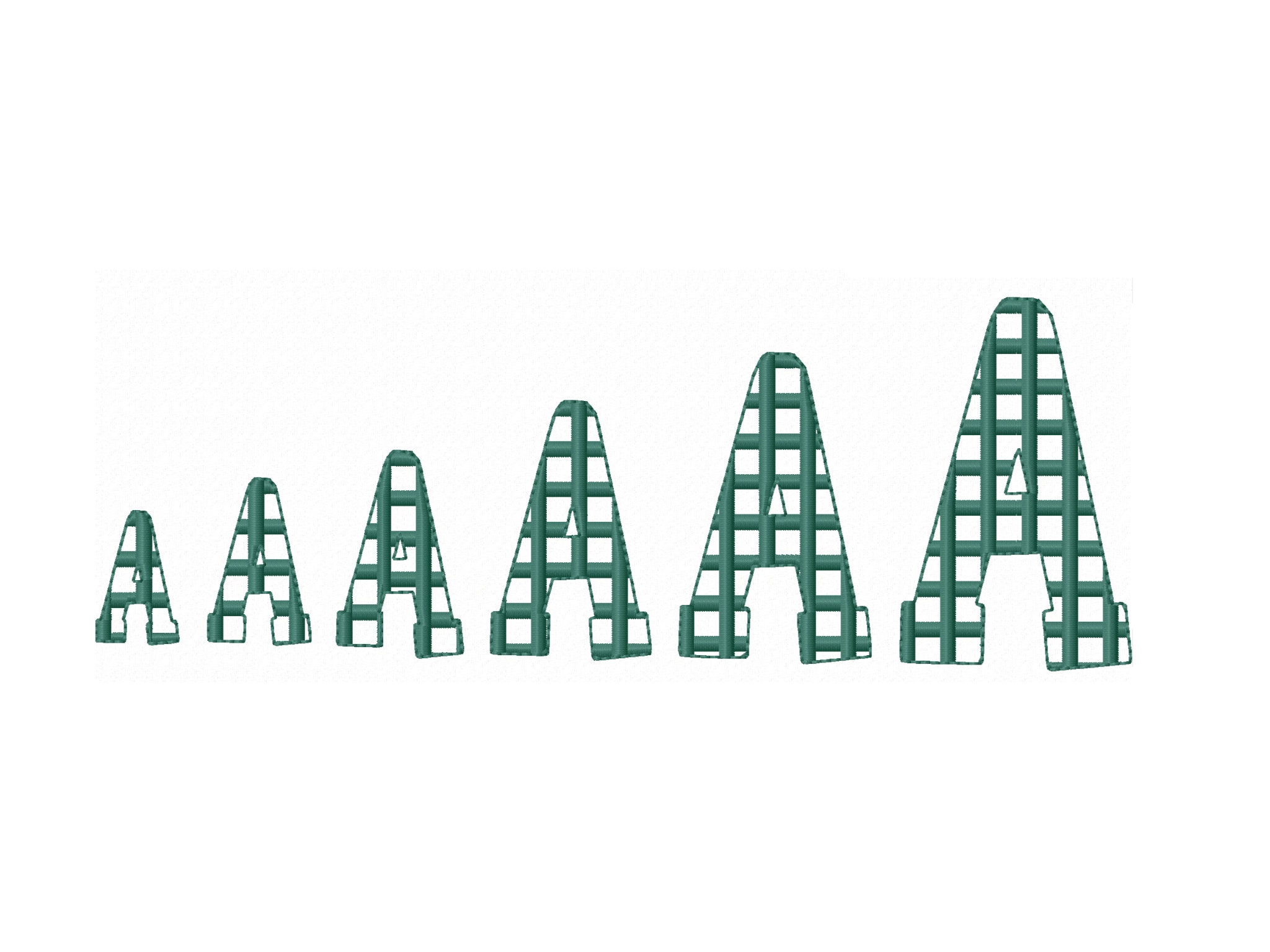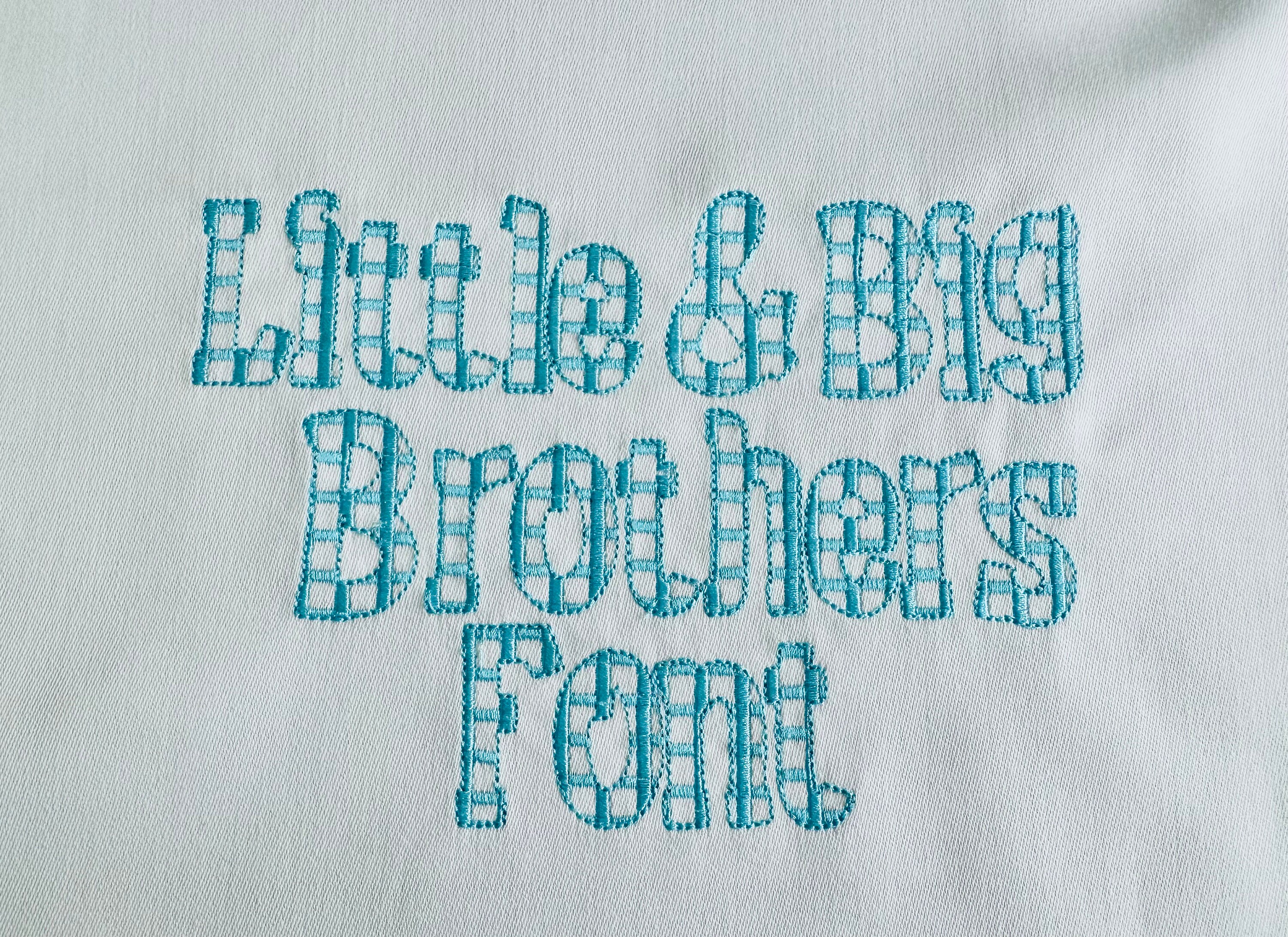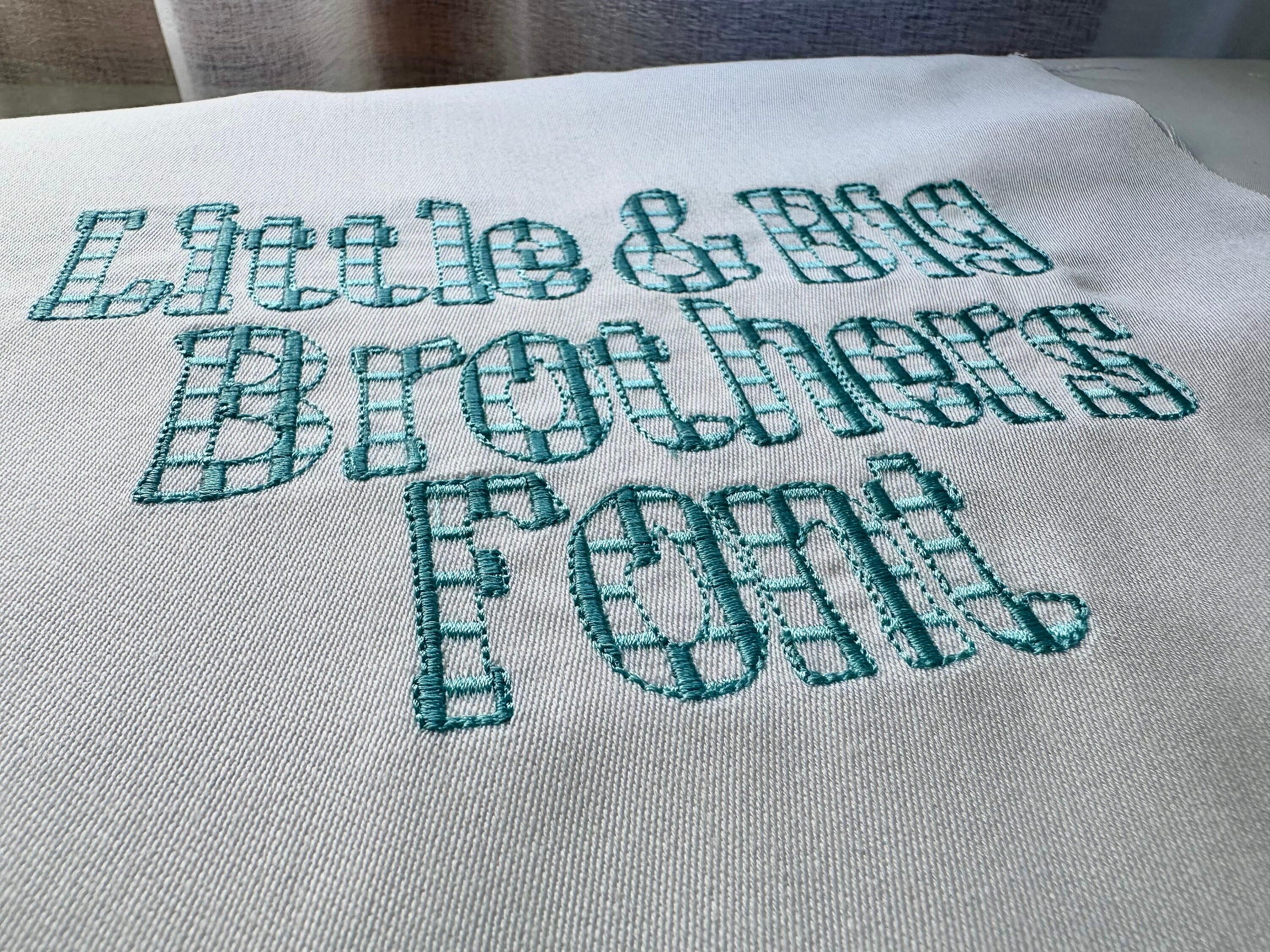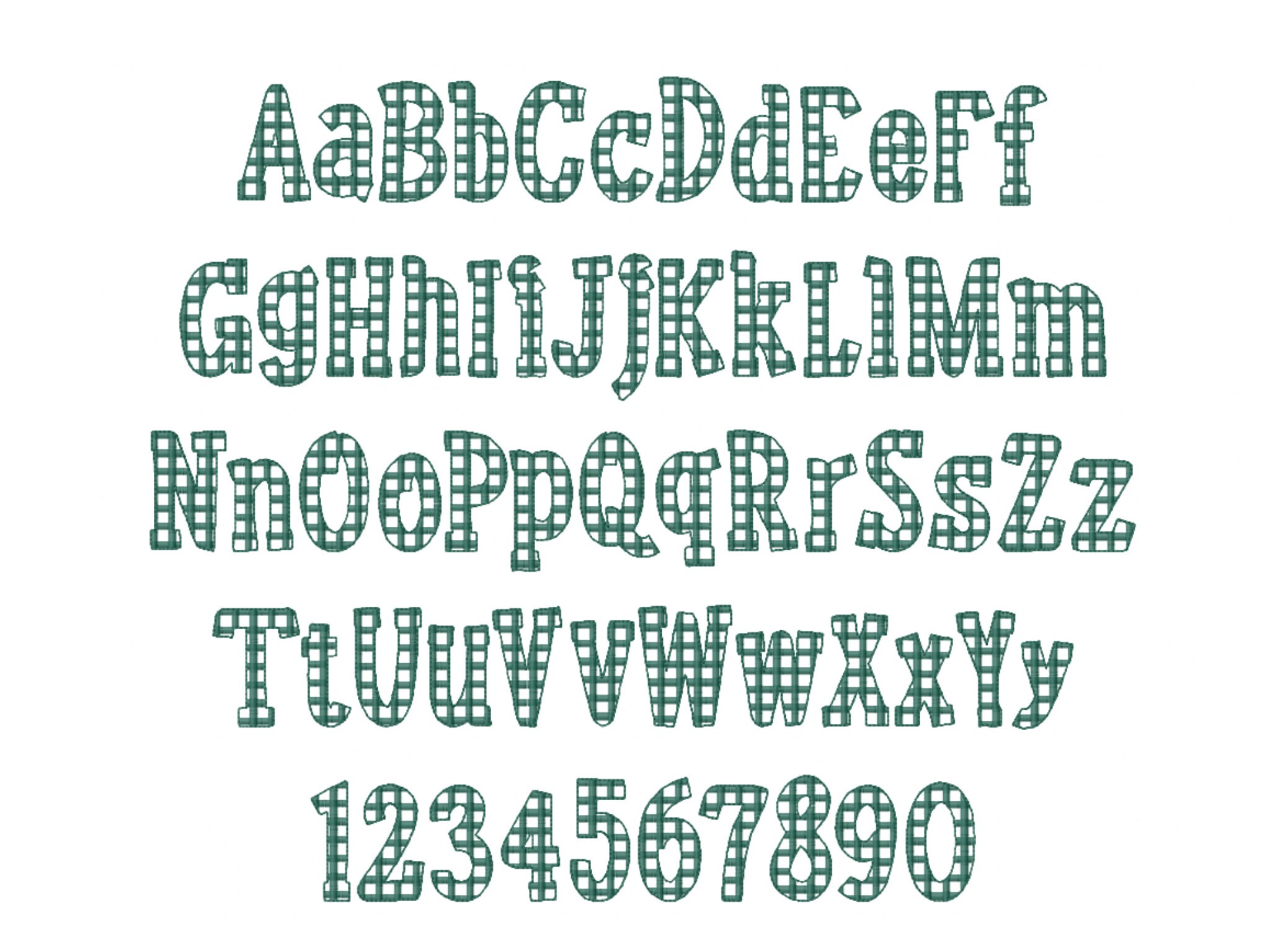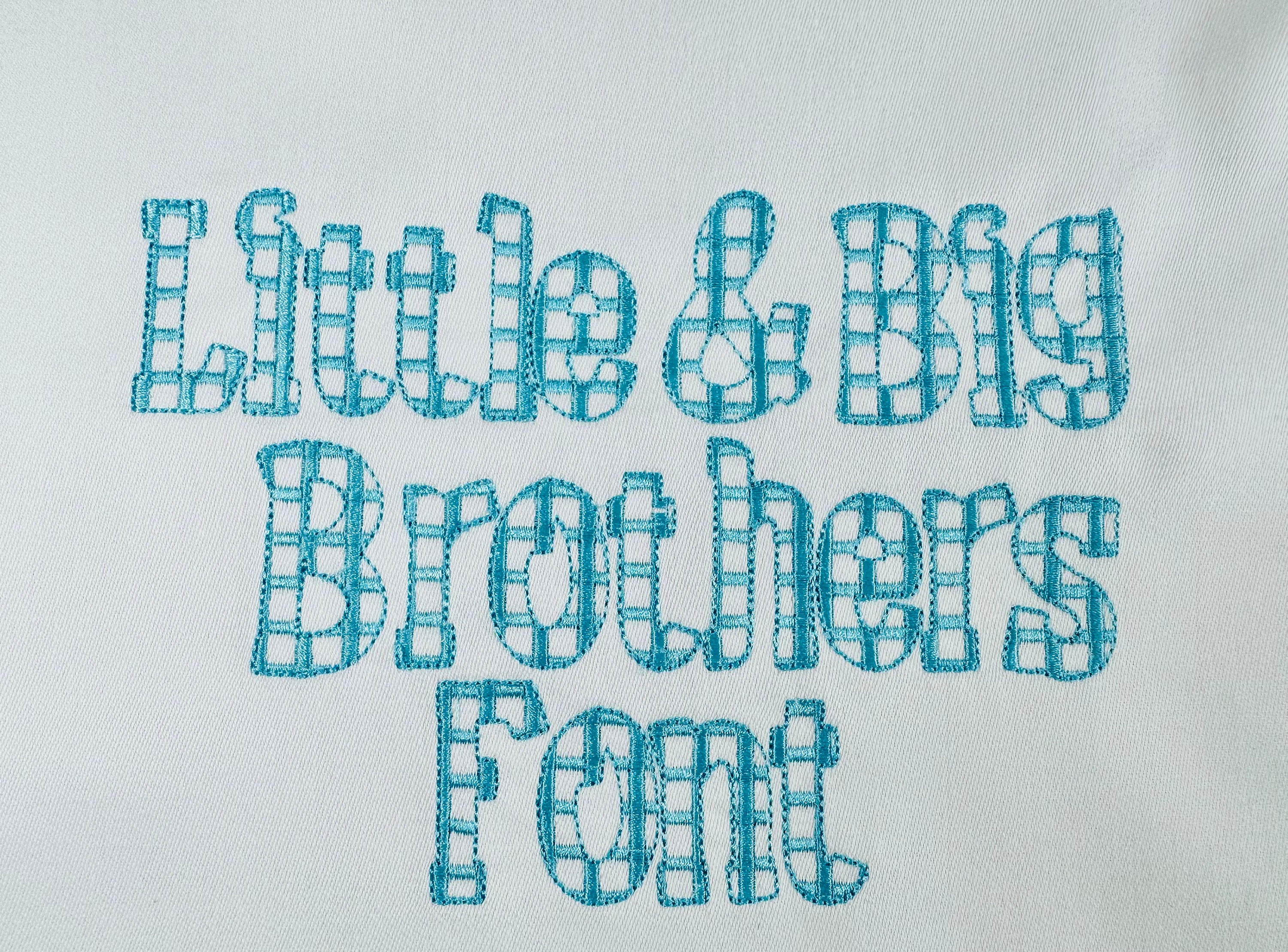
Baby gingham Font checks checkered plaid monogram alphabet machine embroidery designs BX in sizes from 1" up to 3" light stitch embroidery
Uppercase and lowercase Aa-Zz, numbers 0-9, and punctuation & .
This is a light stitch design, the background fabric looks through. Awesome effect!